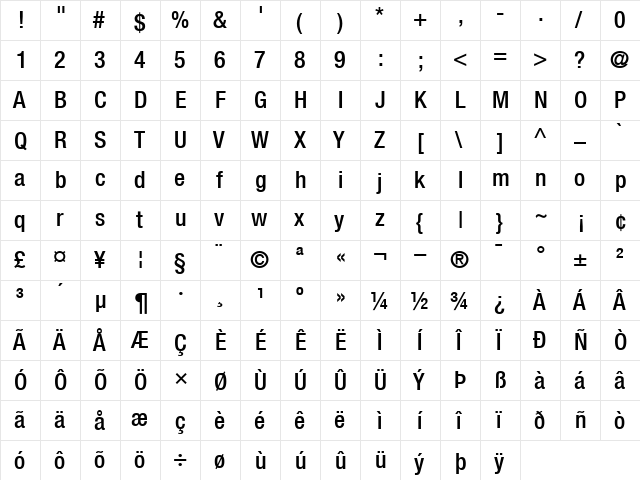
Helvetica67-CondensedMedium Medium
Design Context for Helvetica67-CondensedMedium Typeface
Helvetica67-CondensedMedium is a composed and adaptable typeface that performs quietly and consistently across a wide range of design contexts. The condensed width makes it efficient for tight spaces without sacrificing legibility.